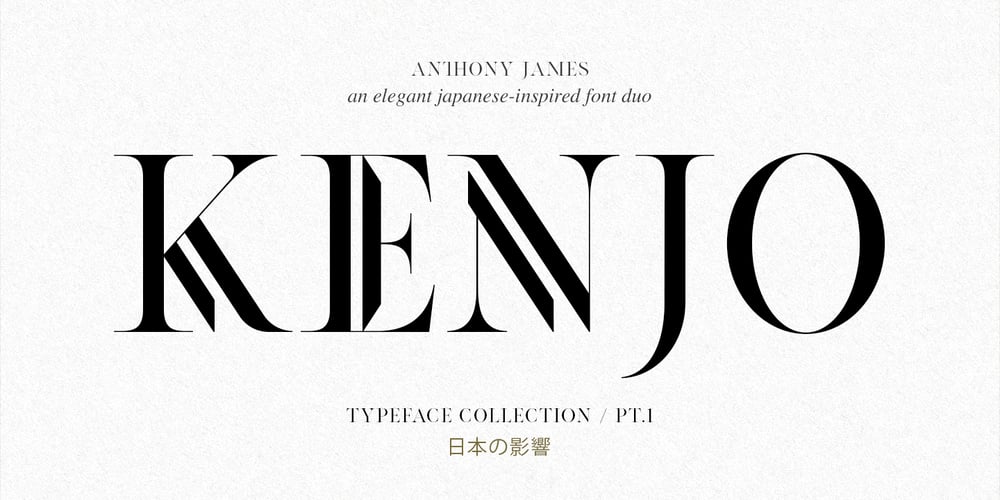
Kenjo
Kenjo font
Kenjo Font Family was designed by Anthony James and published by Anthony James. Kenjo contains 2 styles and family package options. Kenjo I & Kenjo II is an elegant font collection, with Japanese & Art Deco influence. An uppercase character set for display purposes, it houses the standard more versatile Serif (Kenjo I), along with a more fashion-based, stylised option (Kenjo II). Kenjo also includes a versatile collection of unique ligatures, to add a more creative approach to the standard sensibility of Serif based fonts.